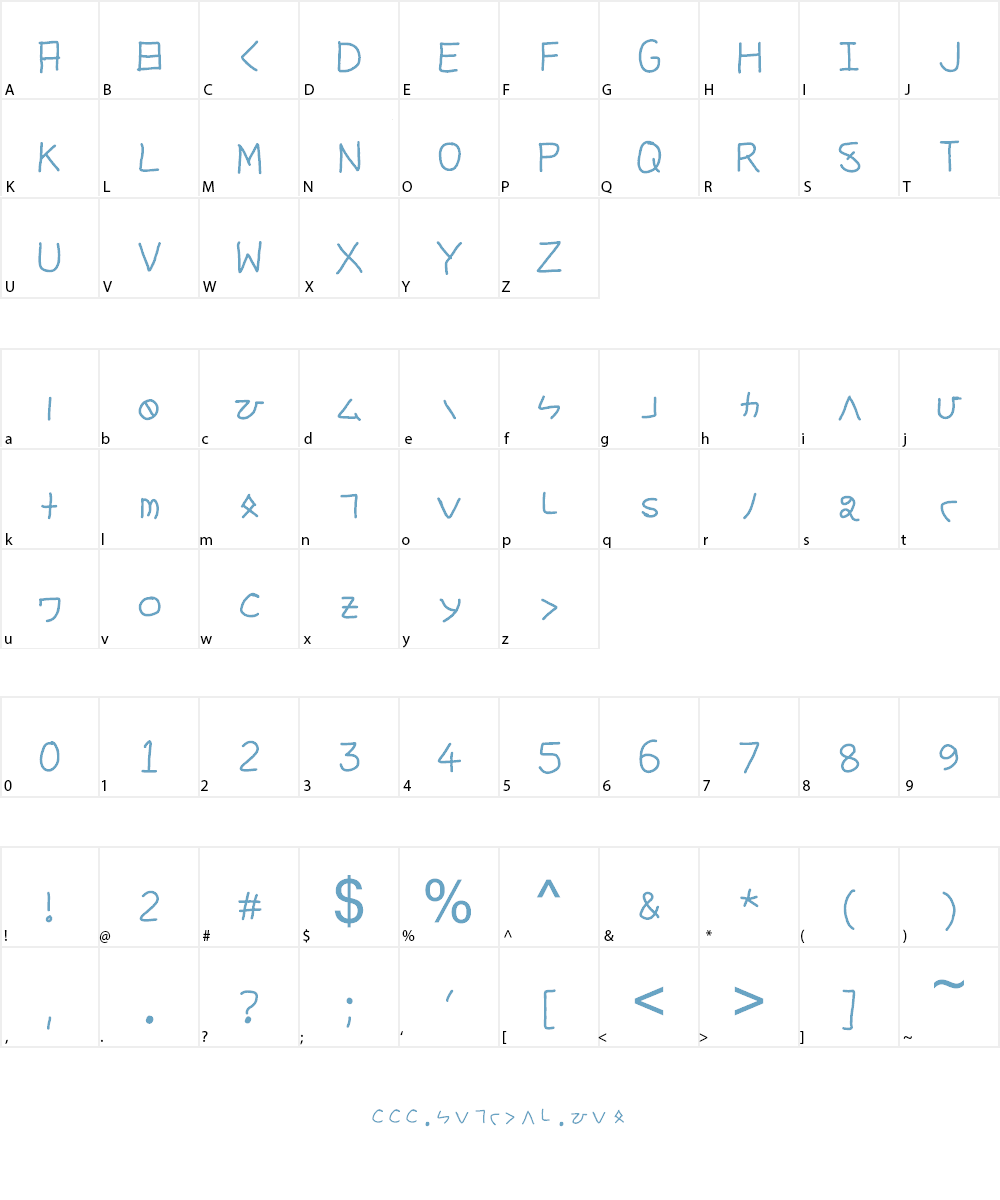
This script is a half forms script .... the consonantal quantities are used to write this script ...... the half forms of consonants are used for writing this script .... because this script is helpful while writing logophonetics character along with sounds .....